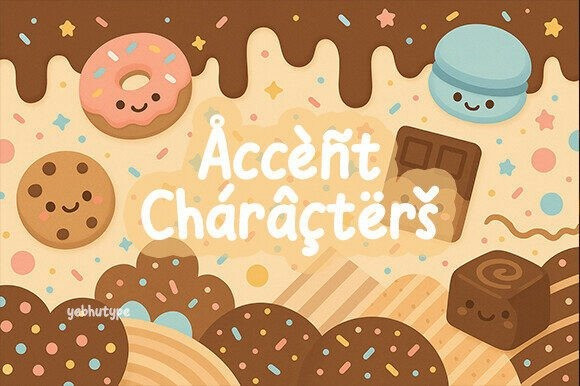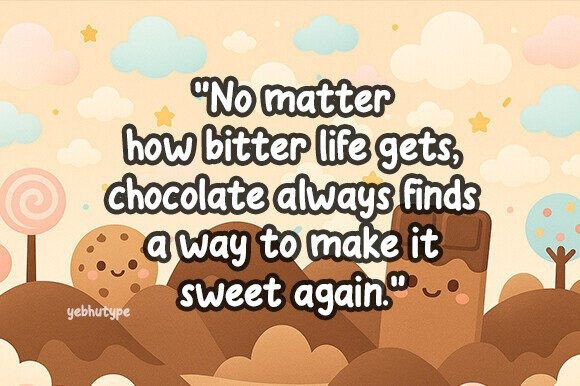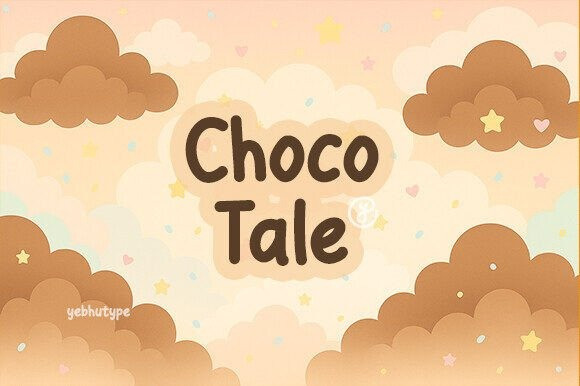
Choco Tale Font
Choco Tale Font, a whimsical and heartwarming typeface that wraps every letter in a blanket of charm and sweetness. Inspired by the cozy comforts of chocolatey treats and childhood fairytales, ChocoTale is more than just a font—it’s a story waiting to be told. With its soft, round letterforms and handcrafted essence, ChocoTale delivers a delightful blend of fun, friendliness, and flavor to all your design adventures.
Whether you’re creating for kids, building a lovable brand, or simply adding a dash of joy to your next project, ChocoTale sprinkles happiness in every word—just like the perfect bite of your favorite dessert.